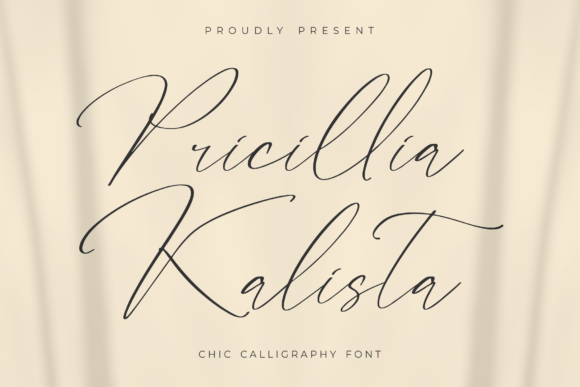
Introduce yourself to the script font that exudes elegance and style - Pricillia Kallista! Born from the artistry of Perspectype, Pricillia Kalista isn't just a font; it's a calligraphic masterpiece ready to enchant your creative projects.
Step into a world where your words dance with beauty and sophistication. Pricillia Kalista's delicate strokes and flowing curves create a visual symphony that captivates and inspires. Craft logos that exude professionalism, brand identities that speak of luxury, and homeware designs that radiate warmth and charm.
Unleash your imagination and adorn your products with Pricillia Kalista. Its versatility knows no bounds, transforming mundane packaging into works of art, turning ordinary mugs into cherished keepsakes, and breathing life into quotes and posters that resonate with emotion.
Elevate your online presence with website headings that command attention. Pricillia Kalista's effortless grace adds a touch of elegance to your digital space, drawing visitors in and leaving a lasting impression.
From shopping bags that turn heads to t-shirts that make statements, Pricillia Kalista is your secret weapon for creating products that stand out. Book covers adorned with its enchanting script invite readers into a world of stories, while name cards and invitation cards leave a lasting impression of refinement and sophistication.
Make your special moments truly unforgettable with greeting cards that speak from the heart. Pricillia Kalista's delicate touch adds a personal touch that transforms words into cherished memories.
Add a touch of magic to your photography with watermarks that whisper your brand's story. Let Pricillia Kalista's charm shine through in special events, adding a touch of exclusivity and sophistication.
Pricillia Kalista isn't just a font; it's an artistic journey waiting to be explored. With its endless possibilities, you'll discover new ways to express your creativity and leave a lasting impression on the world.